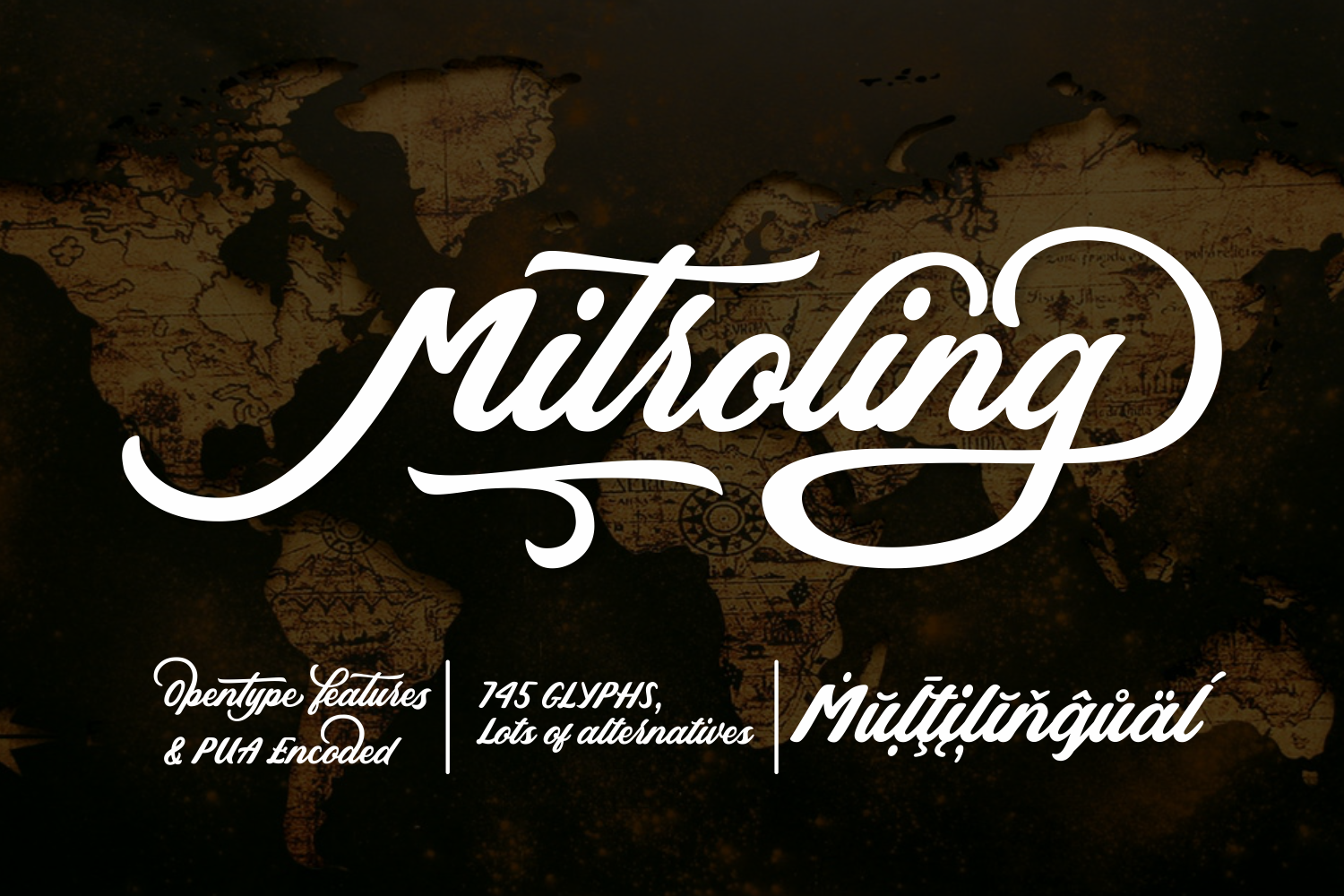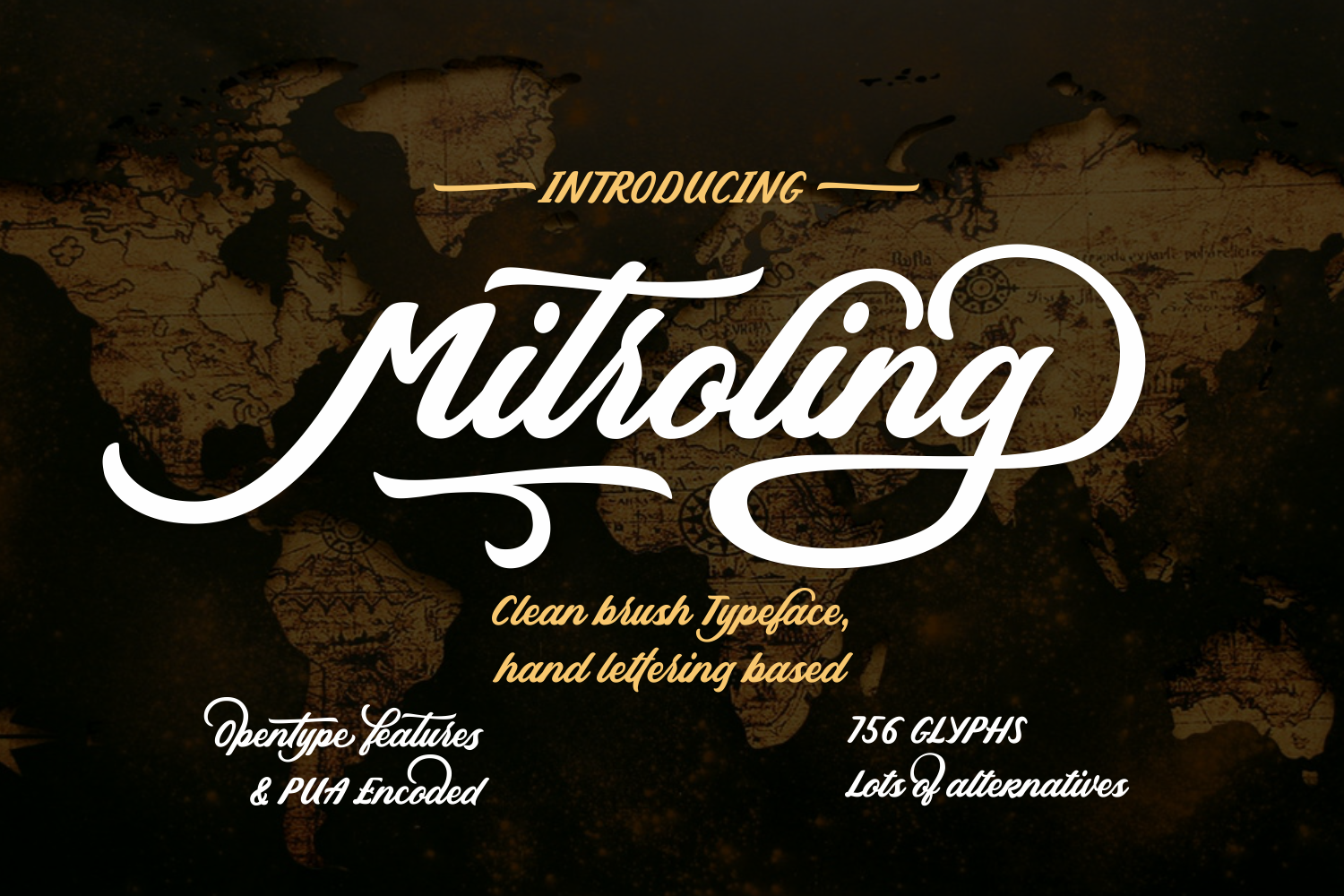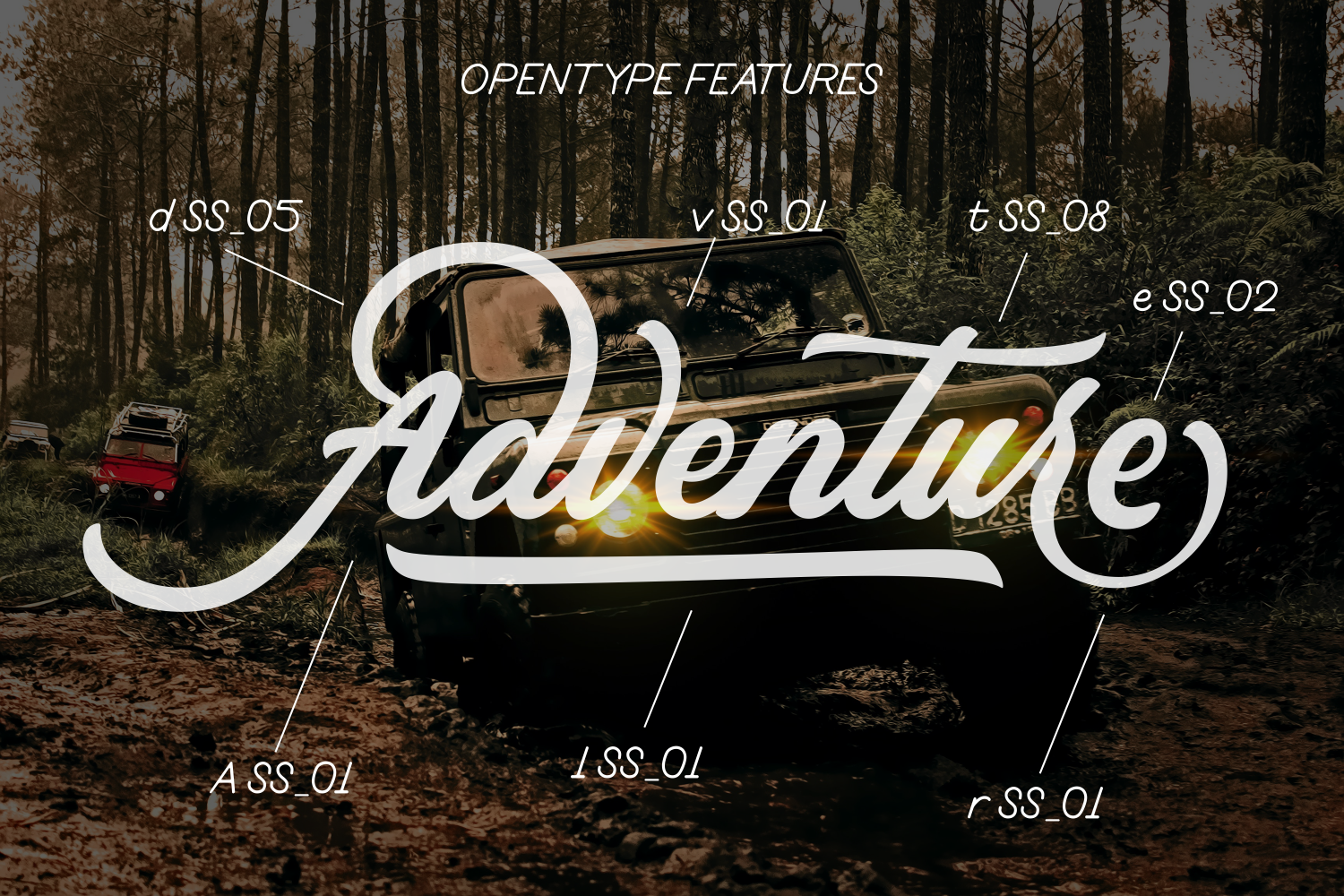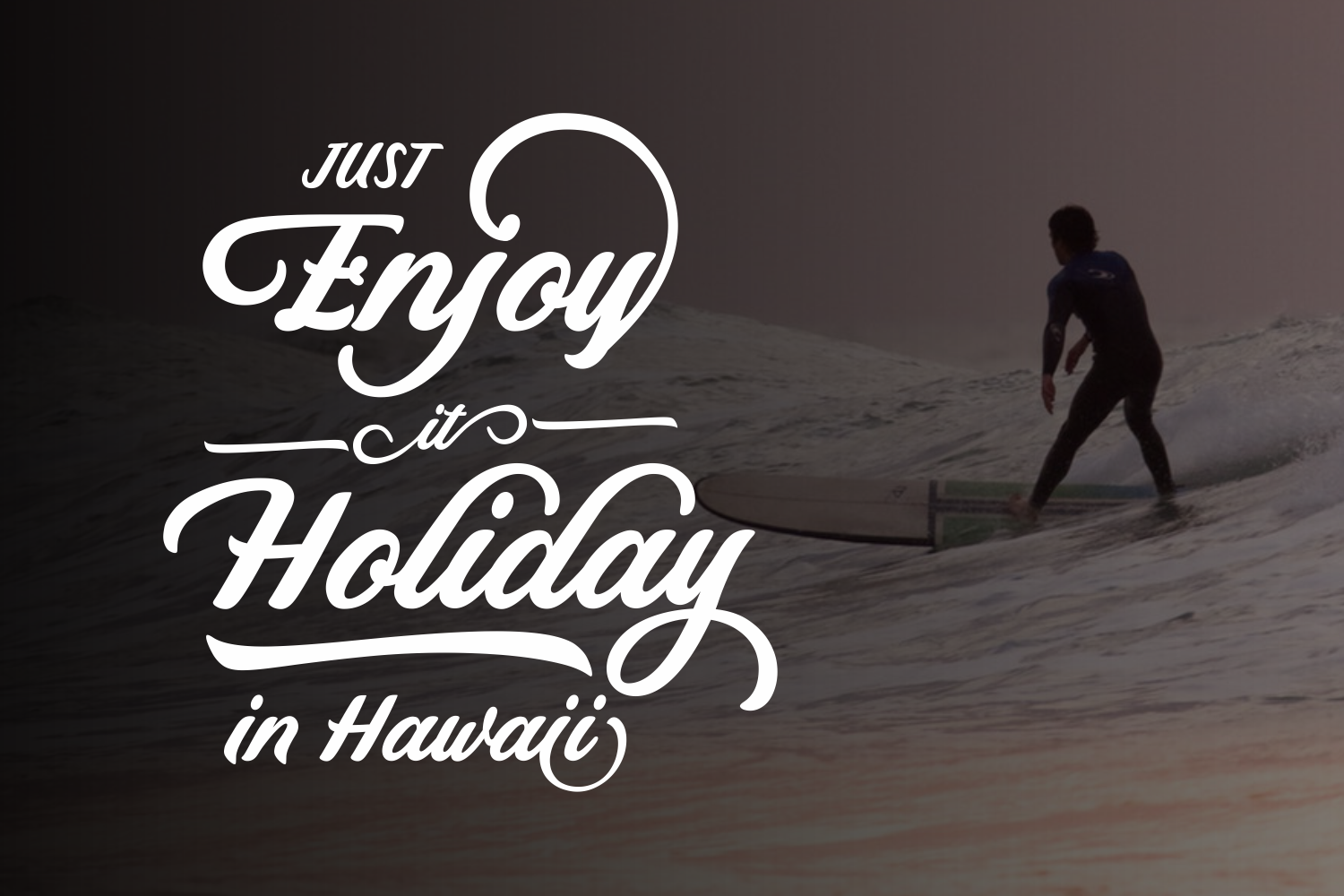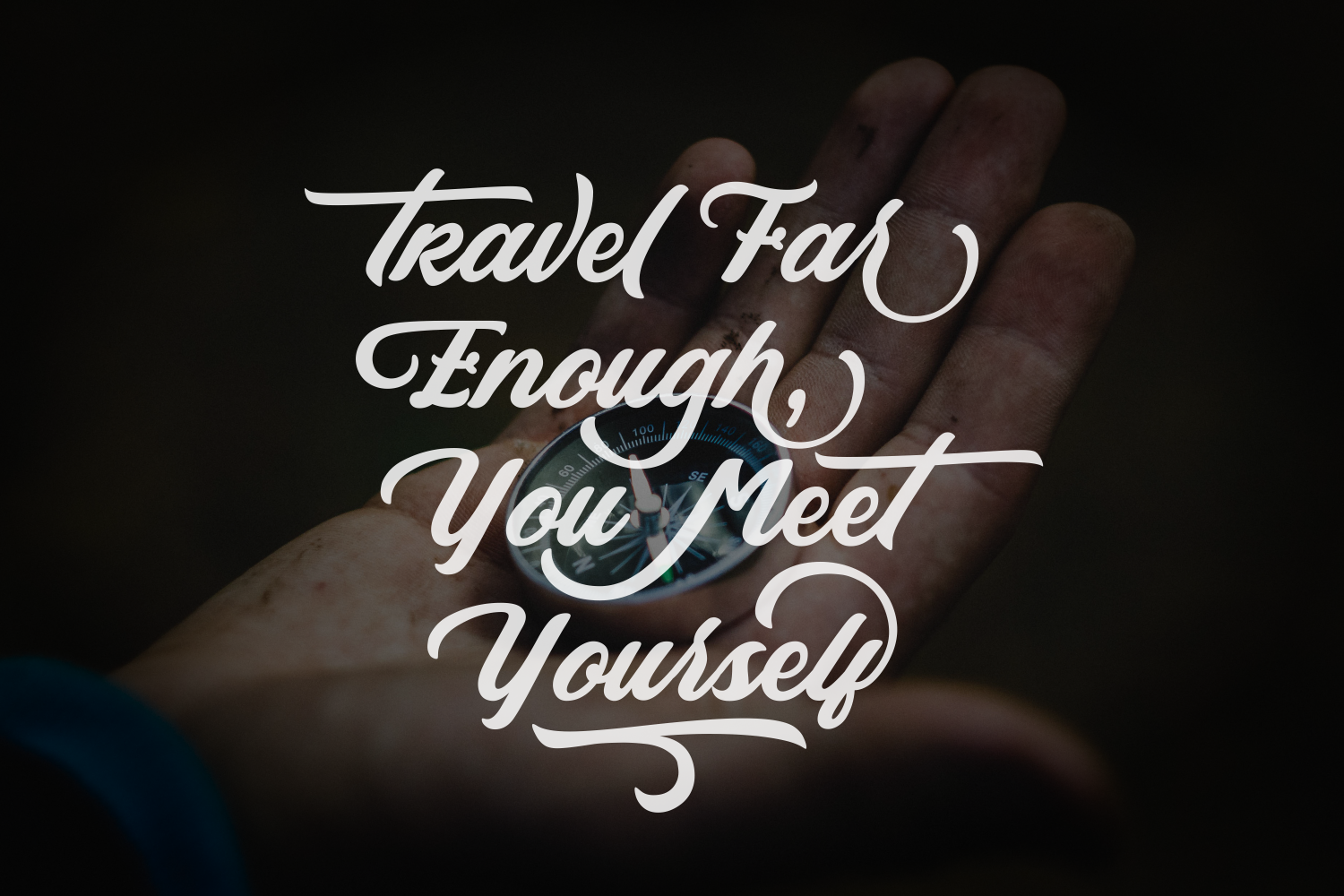
Mistroling Font
About Mistroling Font
Mistroling is a stunning painterly font, ideal for headlines and logotype. This font comes with character alternates that can give your designs a branded and throwback-styled vibe.